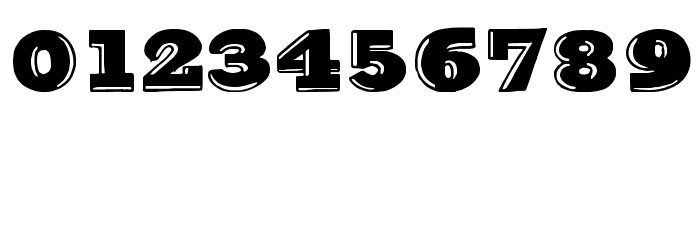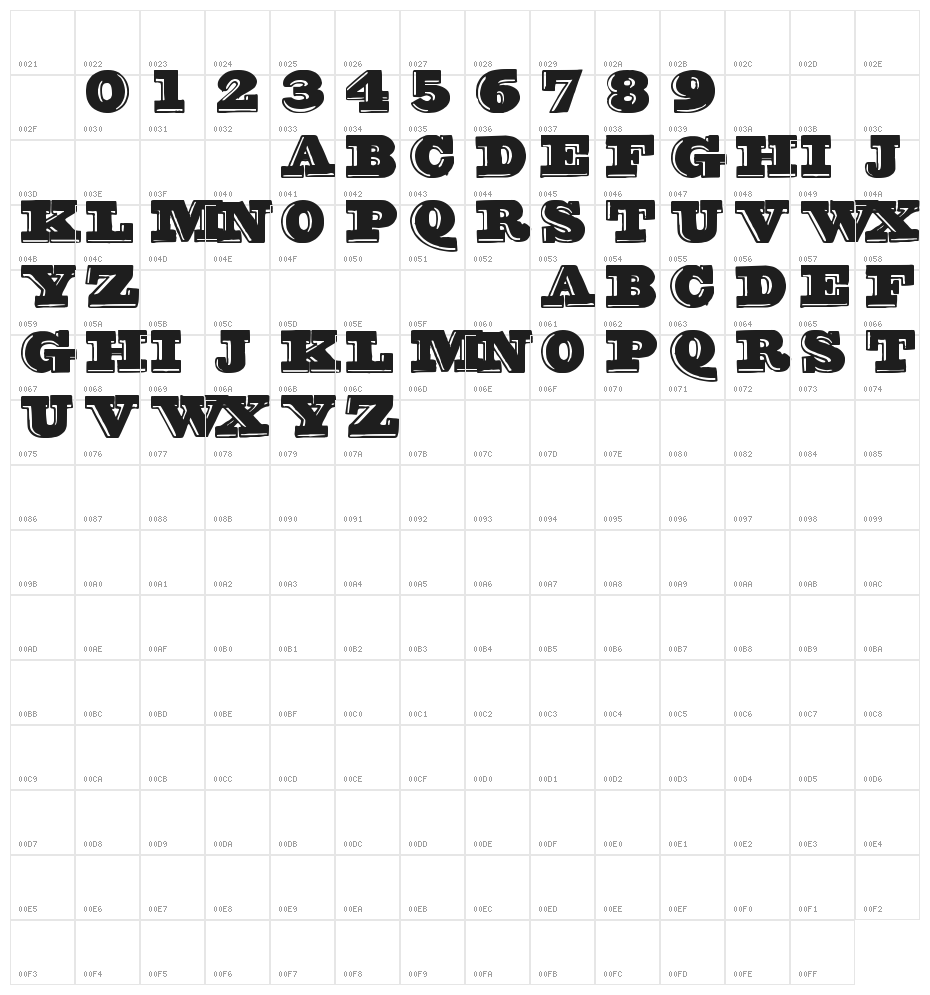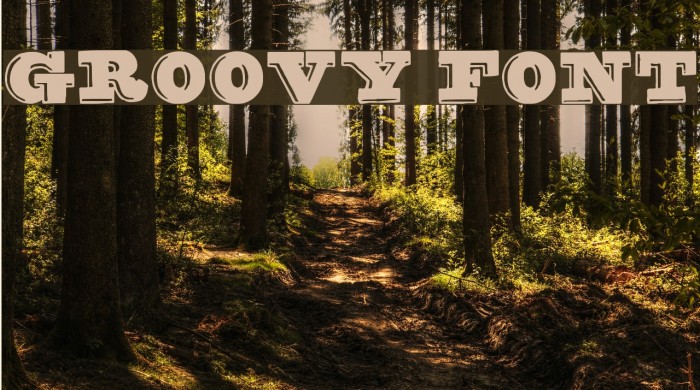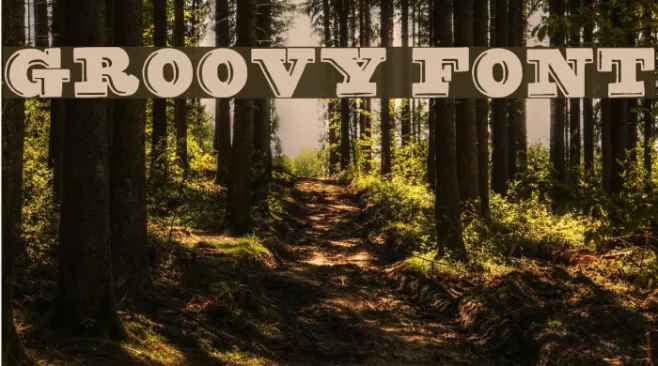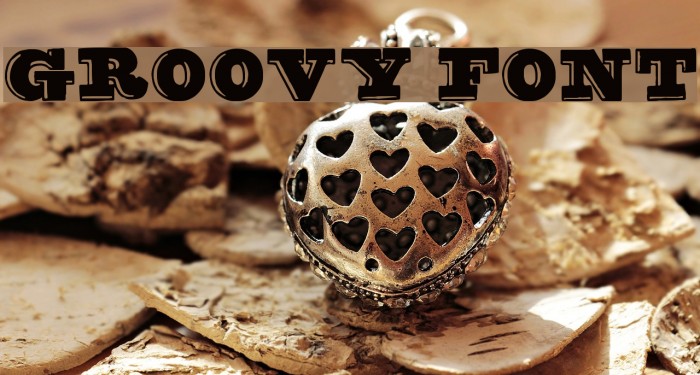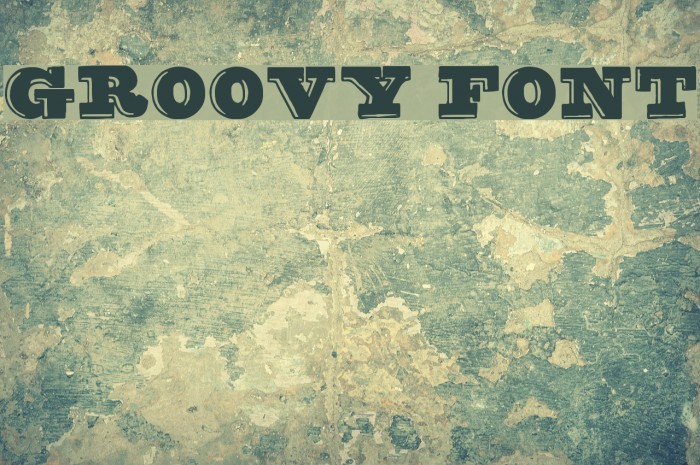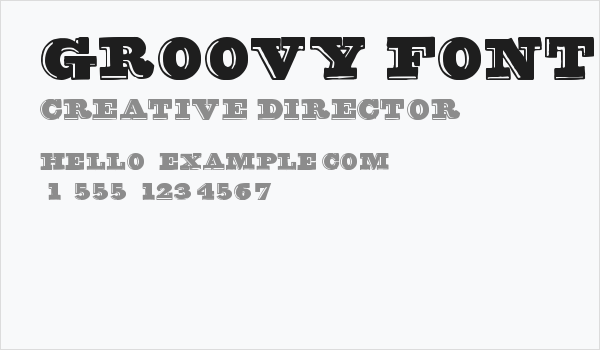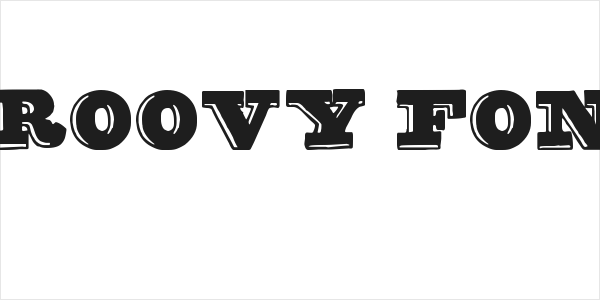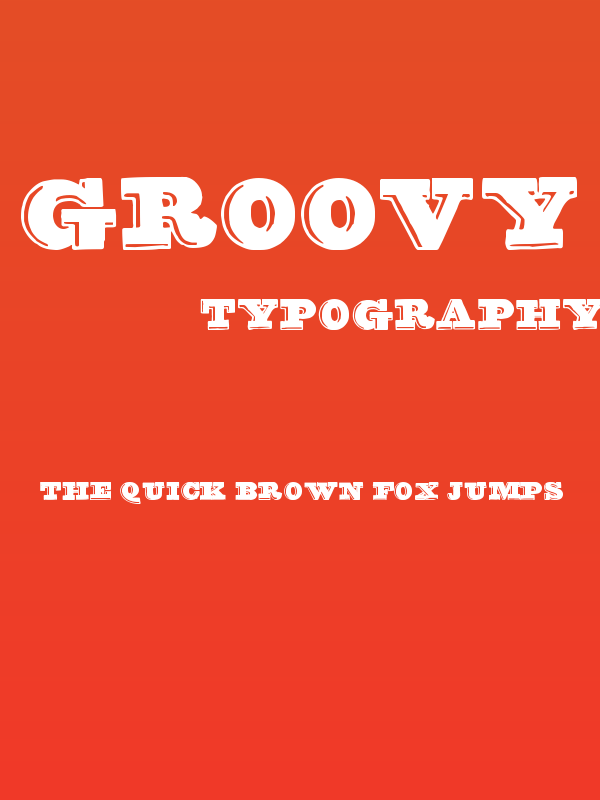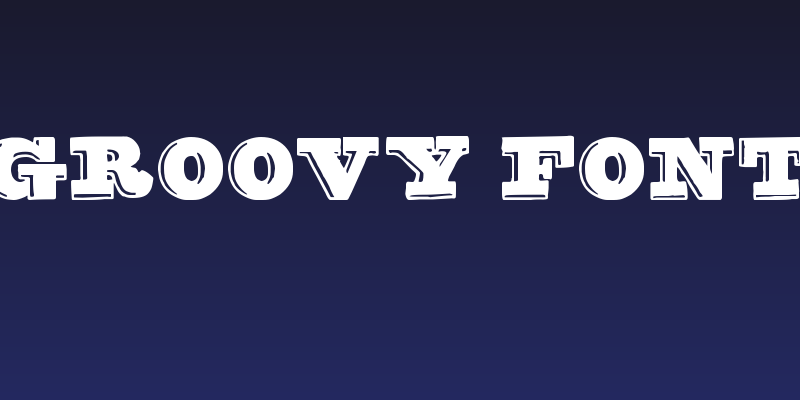
groovy font Font
groovy font Description
This font features a bold, eye-catching design with a strong presence. The characters are heavily stylized with thick strokes and a shadow effect that gives them a three-dimensional appearance. The uppercase letters are uniform in height, and the numbers are equally bold, maintaining the same stylistic elements. The font's design is reminiscent of vintage or retro styles, making it suitable for projects that require a touch of nostalgia or a bold statement. The shadow effect adds depth, enhancing its visual impact.
| Proposed Projects | Ideal for posters, logos, headlines, and any design needing a retro or bold visual impact. |